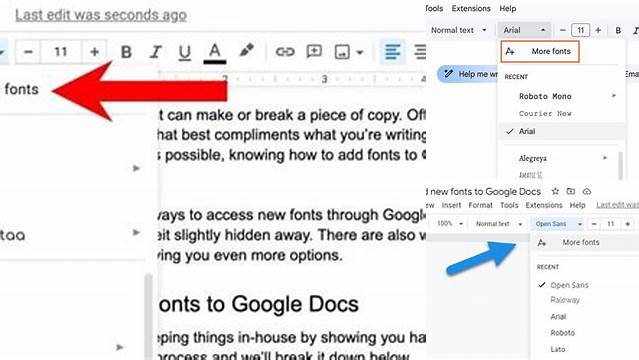
Google Docs Font Issues: Why You Can't Add New Fonts
Hey guys! Ever run into that frustrating moment when you're trying to jazz up your Google Doc with a cool new font, only to find that the option seems to be missing? It’s a common issue, and frankly, it can throw a wrench in your creative flow. You might be wondering, "Why can't I add fonts to Google Docs?" Well, let's dive deep into the nitty-gritty of why this happens and what you can do about it. It’s not as complicated as it seems, and understanding the underlying reasons will help you troubleshoot effectively. We’ll explore the limitations, the workarounds, and the best practices to ensure your documents look exactly how you envisioned them. So, grab a coffee, and let’s get this sorted out!
Understanding Google Docs Font Limitations
So, you’re staring at your Google Doc, ready to unleash some typographic magic, but your favorite font isn't there. Why can't I add fonts to Google Docs? The first thing to understand is that Google Docs doesn't operate like your desktop word processor, where you can install any font you wish directly onto your system and have it magically appear. Google Docs is a web-based application, which means it relies on fonts that are either built-in or readily available through its integrated font library. Think of it like this: instead of installing fonts on your computer, you're selecting from a curated, cloud-based collection. This approach ensures consistency across different devices and operating systems, meaning your doc will look the same whether you’re on a Windows PC, a Mac, or even a Chromebook. However, this also means you can't just download a TTF or OTF file and expect it to work. The system is designed for accessibility and collaboration, and that often comes with certain restrictions. The good news is, the Google Fonts library is huge, offering thousands of options that cover almost every aesthetic imaginable. The limitation isn't usually a lack of choice, but rather a misunderstanding of how to access and add those choices to your document. We’ll get into the how-to very shortly, but first, it’s crucial to grasp this fundamental difference between web-based and desktop applications.
The Power of the Google Fonts Library
When you ask, "Why can't I add fonts to Google Docs?" and feel limited, remember the massive library Google provides. It’s not like they left you high and dry! Google Docs integrates seamlessly with the Google Fonts service, which boasts an ever-growing collection of over 1,300 open-source font families. Seriously, guys, that’s a ton of fonts! From elegant serifs and sleek sans-serifs to quirky display fonts and professional monospaced options, you can find pretty much anything you need. The key here is that these fonts are web fonts, meaning they are designed to be displayed consistently across different browsers and devices. When you add a font in Google Docs, you’re essentially pulling it from this extensive cloud-based library. The interface might not immediately scream “install new fonts,” but it’s built to access this vast repository. The process involves clicking the font dropdown menu and then selecting “More fonts.” This opens a window where you can browse, search, and select fonts to add to your “My fonts” list. It’s designed to be straightforward, but the initial discovery of this “More fonts” option can be a bit of a hidden gem for some users. So, while you can't install external font files directly, you have an incredible wealth of options already at your fingertips, just waiting to be explored. This integrated system is what makes collaboration so smooth – everyone sees the same fonts without needing to do anything extra.
Exploring Different Font Categories
Navigating the vast Google Fonts library can feel a bit overwhelming at first, especially if you’re new to it. When you click “More fonts” in Google Docs, you're presented with a world of typographic styles. You’ll see categories like Serif, Sans Serif, Display, Handwriting, and Monospace. Serif fonts, like Times New Roman, have those little decorative strokes at the end of letterforms, giving them a classic and formal feel. They’re great for longer blocks of text, like in books or reports, as the serifs can help guide the eye. Sans Serif fonts, on the other hand, lack these strokes (think Arial or Helvetica). They generally look cleaner and more modern, making them popular for headings, web content, and a more contemporary vibe. Display fonts are the wild cards – think bold, decorative, or unique styles perfect for titles, logos, or short bursts of text where you want to make a statement. Handwriting fonts try to mimic the look of actual handwriting, ranging from elegant scripts to casual scribbles. Finally, Monospace fonts assign the same horizontal space to each character, just like old typewriters; they’re commonly used for coding or when you need text to align perfectly in columns. Understanding these categories helps you make informed choices when you’re trying to achieve a specific look or feel for your document. Don't be afraid to experiment! The beauty of this system is that you can try out different fonts on your text without any commitment.
Finding Specific Font Styles
If you’re wondering, “Why can’t I add fonts to Google Docs?” and you have a very specific style in mind, the search function within the “More fonts” window is your best friend. Beyond just browsing categories, you can actually type in keywords to narrow down your options. For instance, if you’re looking for a font that feels “quirky” or “vintage,” try typing those terms into the search bar. You might be surprised at the results! Similarly, if you know the name of a font you like but it’s not currently in your list, you can search for it directly. It’s also worth noting that Google Fonts often includes variations within a font family, such as different weights (light, regular, bold) and styles (italic). You can usually see these options once you’ve selected a font and it appears in your “My fonts” list, or sometimes within the main font selection window itself. This level of detail allows for sophisticated typographic hierarchy within your document, enabling you to distinguish headings, subheadings, and body text effectively. So, even if you can't upload your own, the curated collection offers a surprising amount of flexibility and customization.
Using Filters for Font Discovery
When you’re deep in the “More fonts” menu, guys, don’t forget about the filters! While searching by name or keyword is super effective, filters can help you discover fonts you might not have thought of. You can typically filter by script (like Latin, Cyrillic, Greek), by classification (Serif, Sans Serif, etc., as we discussed), and sometimes even by properties like “display” or “script” which offer broader stylistic groupings. For example, if you’re working on a document for an international audience, filtering by script can ensure you’re selecting a font that supports the necessary characters. Or, if you’re aiming for a very specific aesthetic like a “handwritten” feel, using the script filter can quickly surface those options. These filters are powerful tools for refining your search and making the process of finding the perfect font much more efficient. They help you cut through the noise and zero in on exactly what you’re looking for, or even discover something new and exciting that fits your project’s needs perfectly.